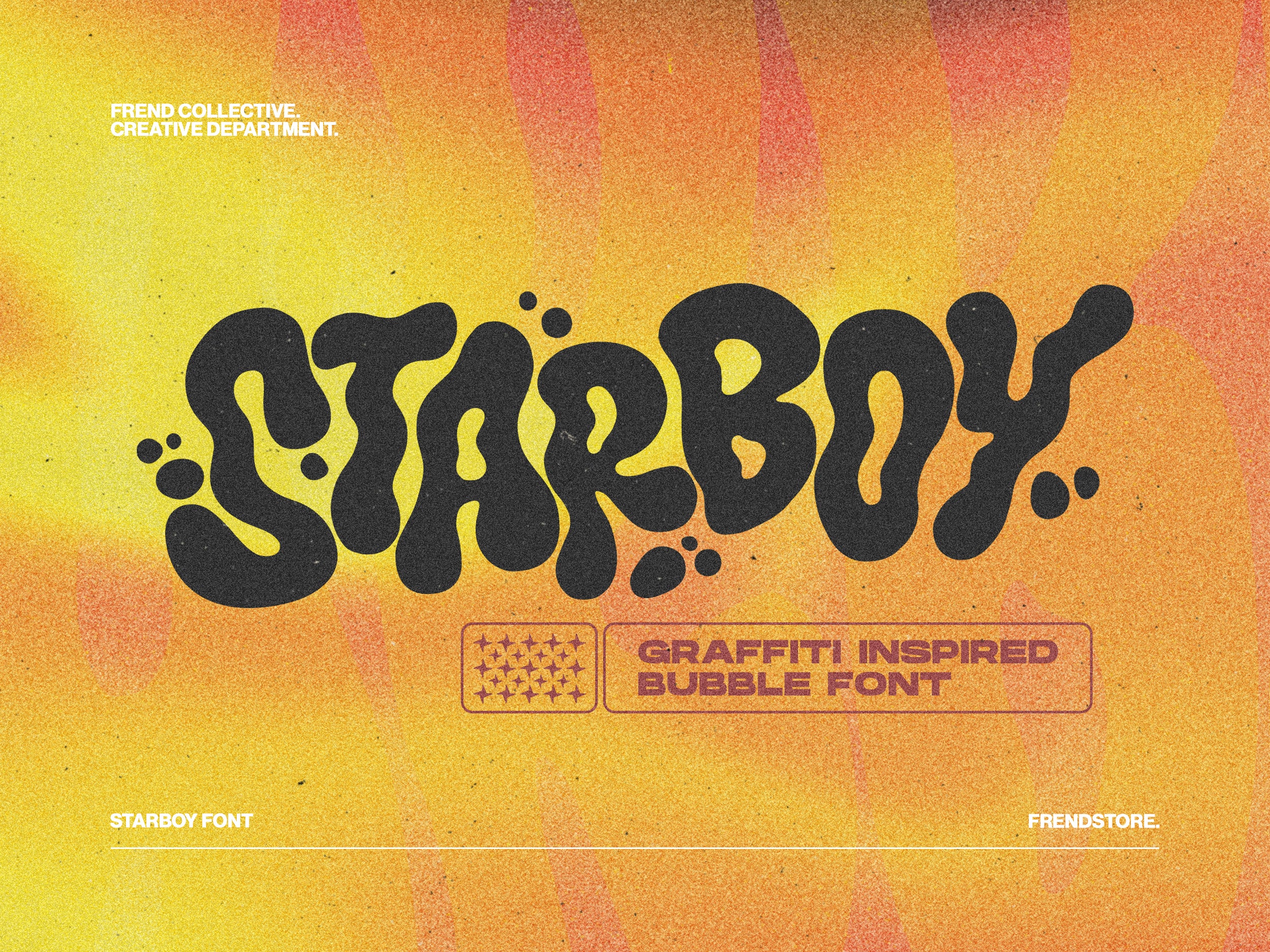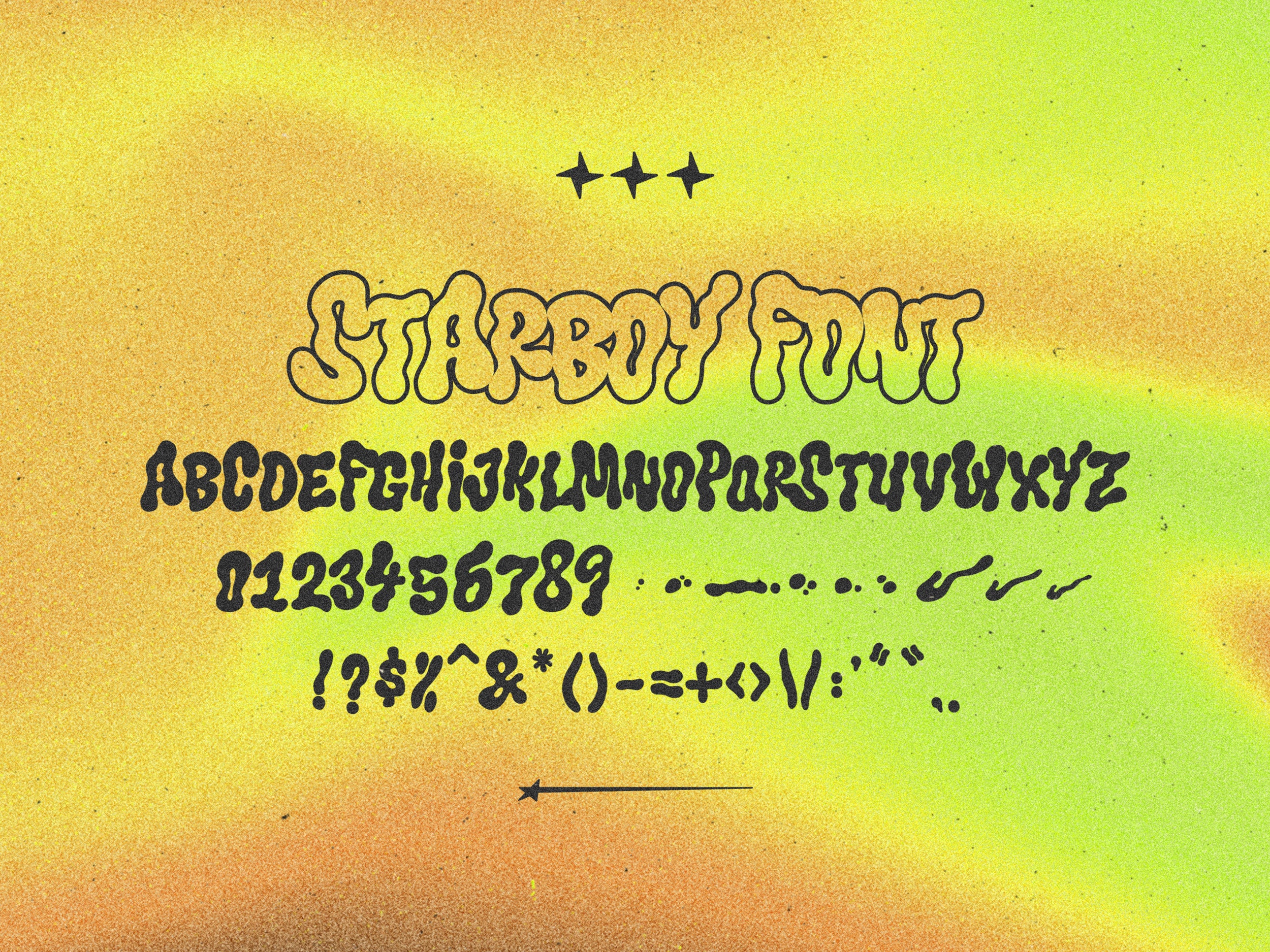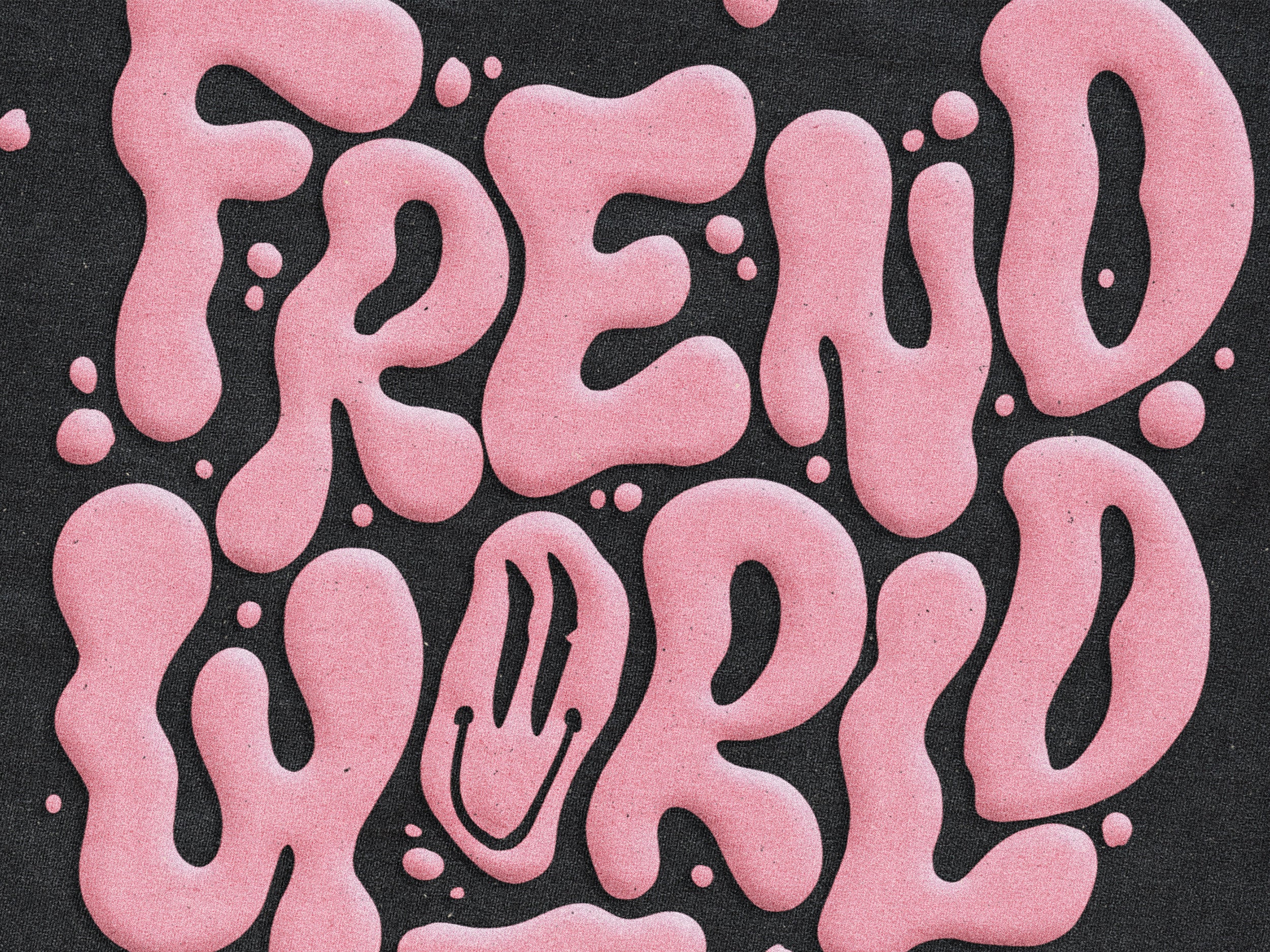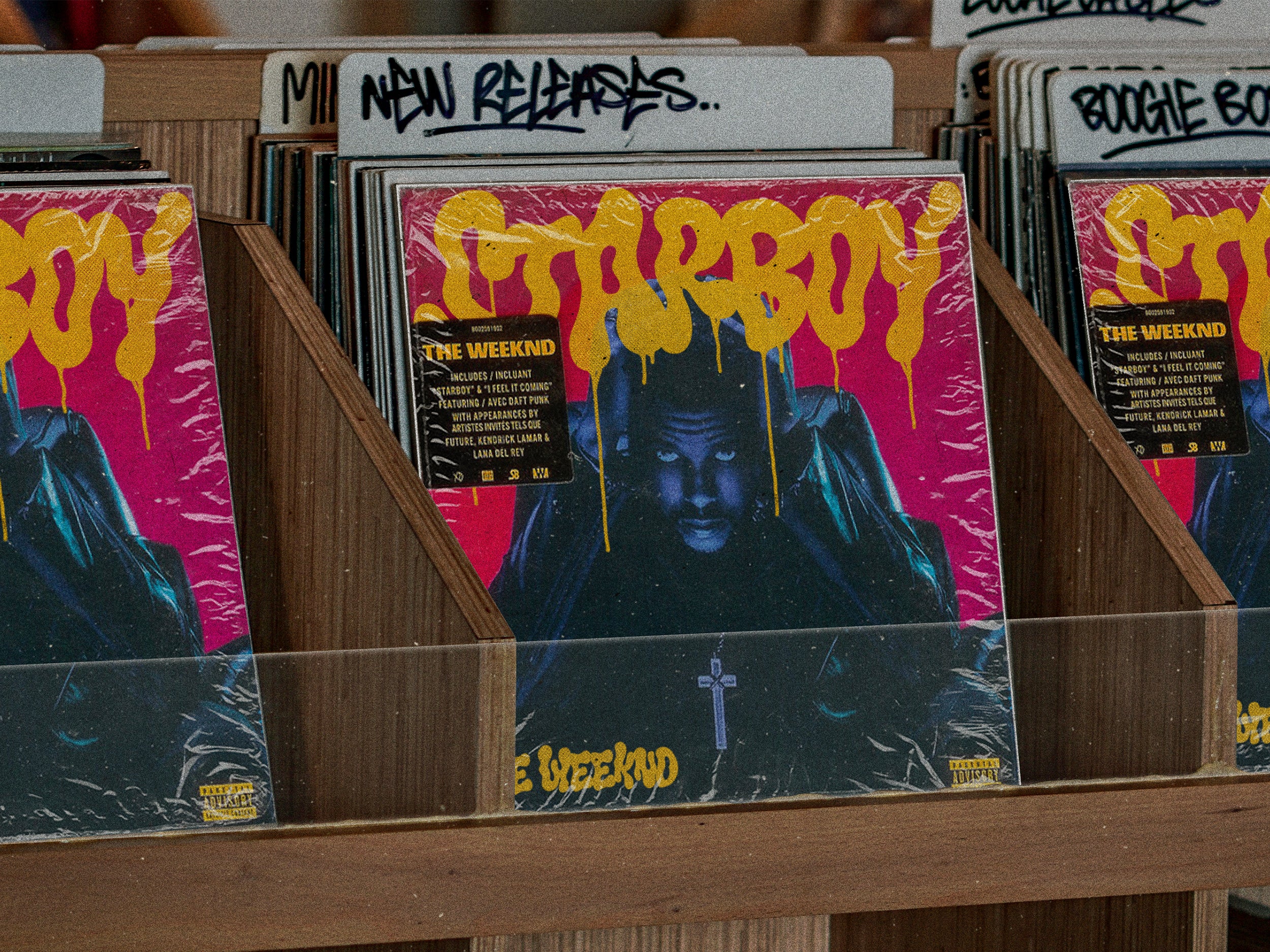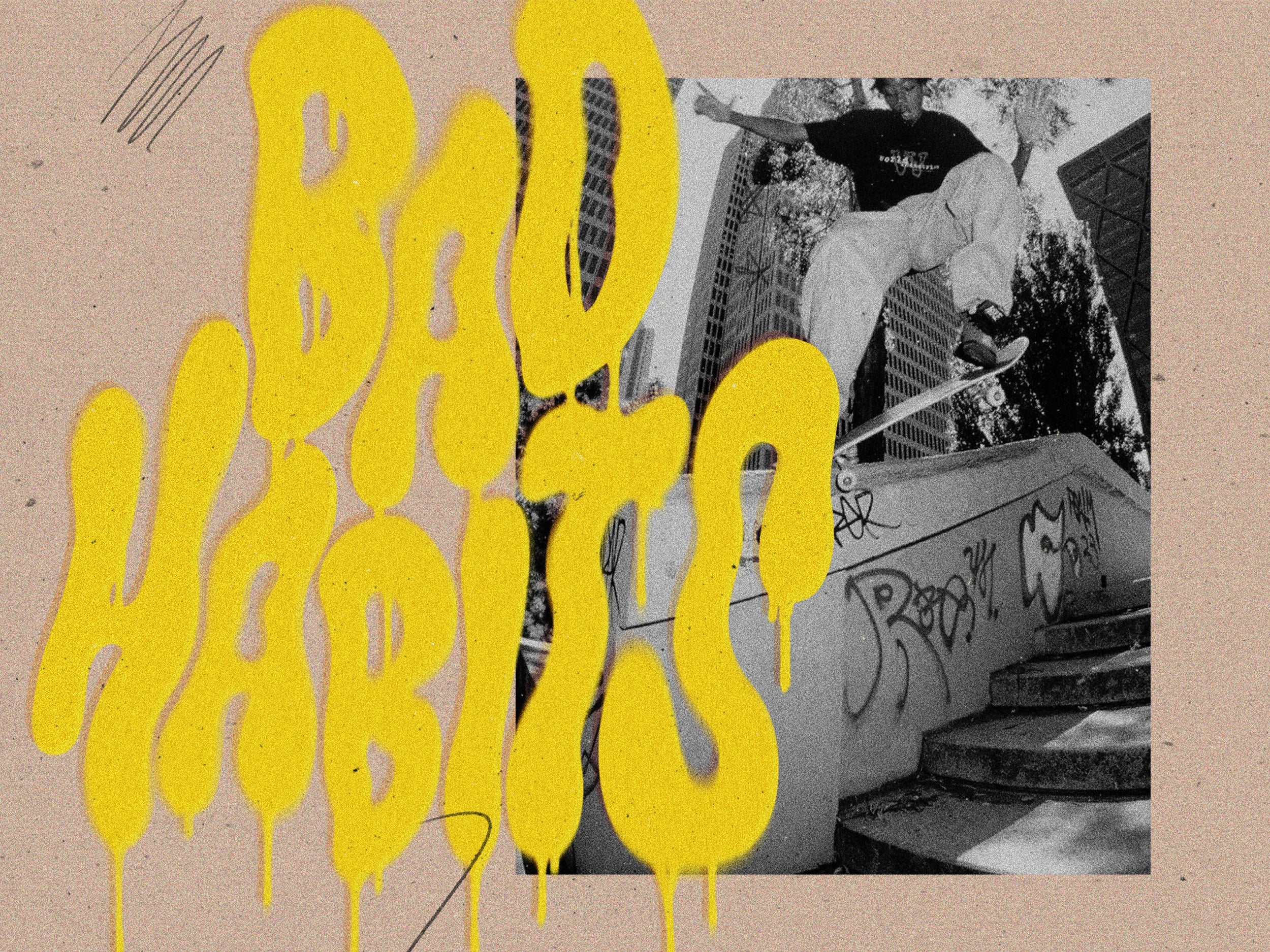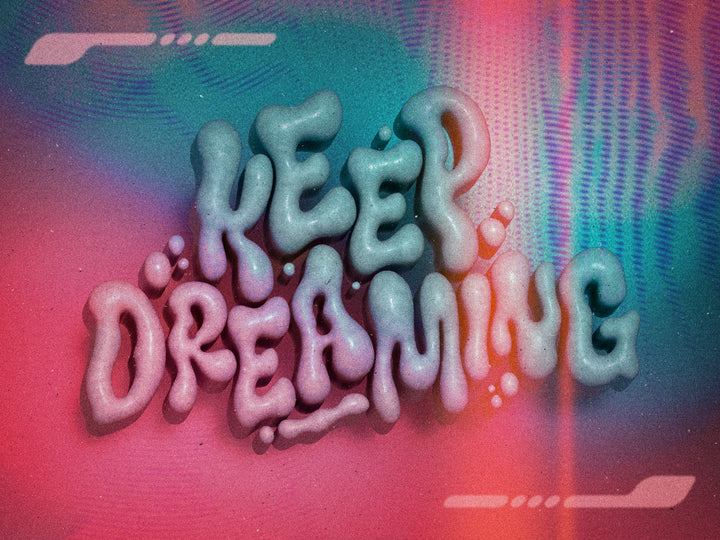
STARBOY FONT
Introducing Starboy Font
Starboy Font is a fun, bubbly, unique, graffiti inspired font. Starboy is perfect for all large display text and is versatile with any san serif fonts to mix & match!
Features: All Caps Display Font ONLY